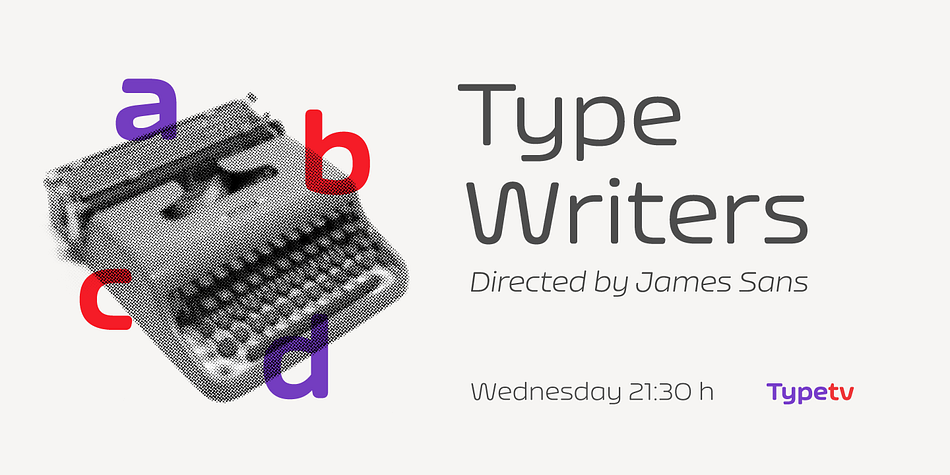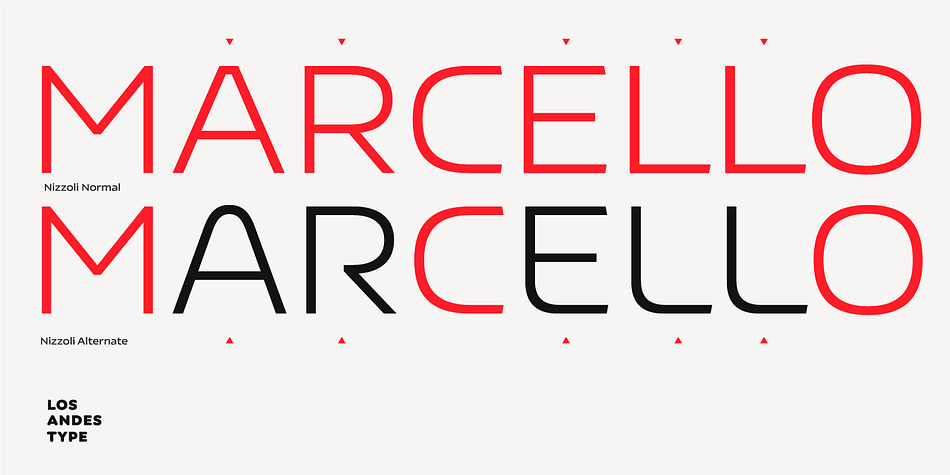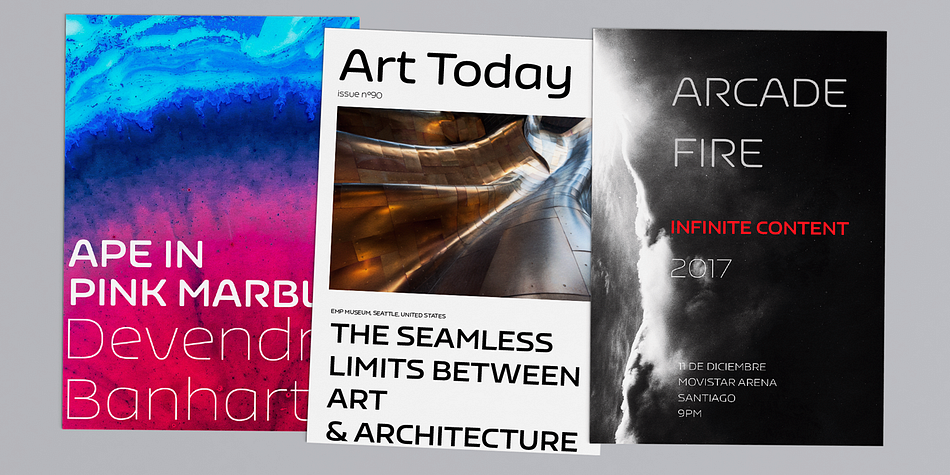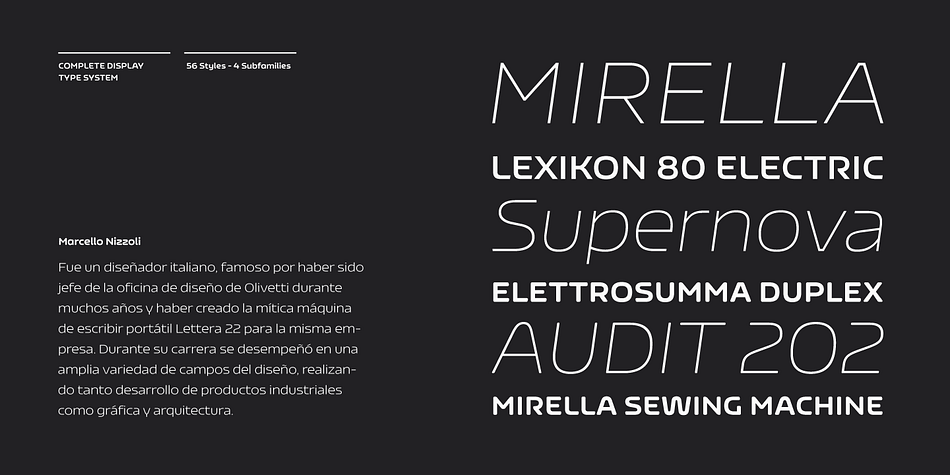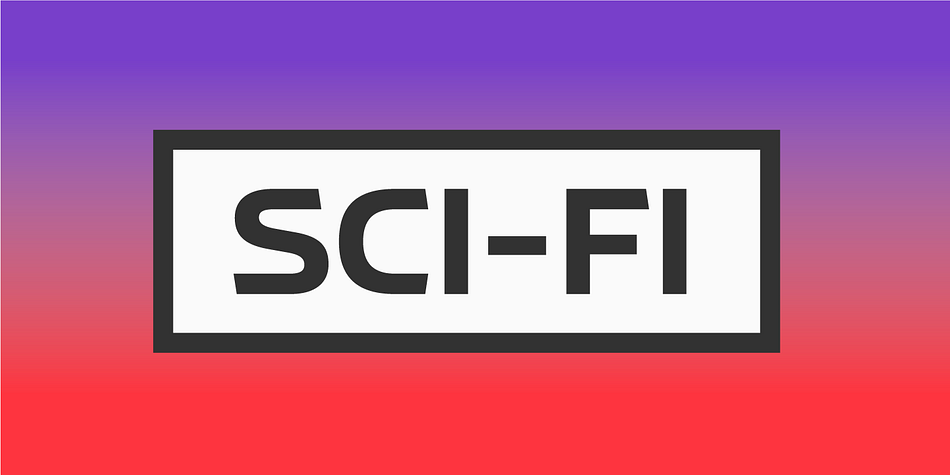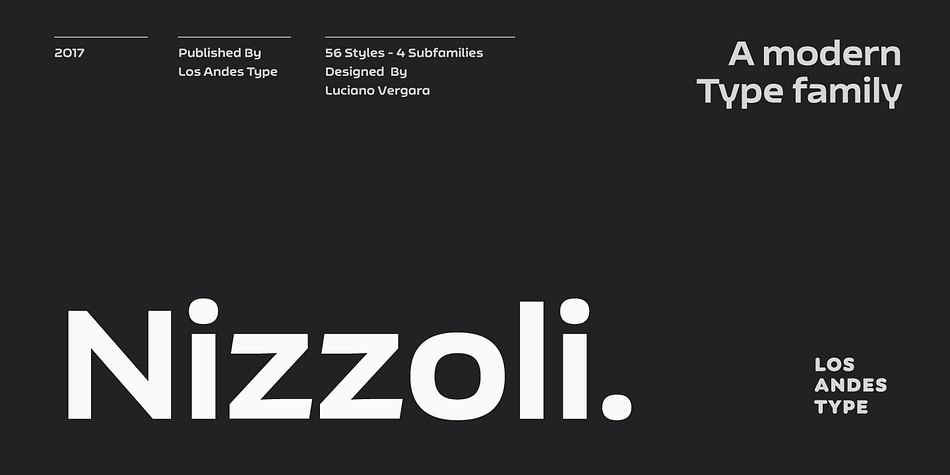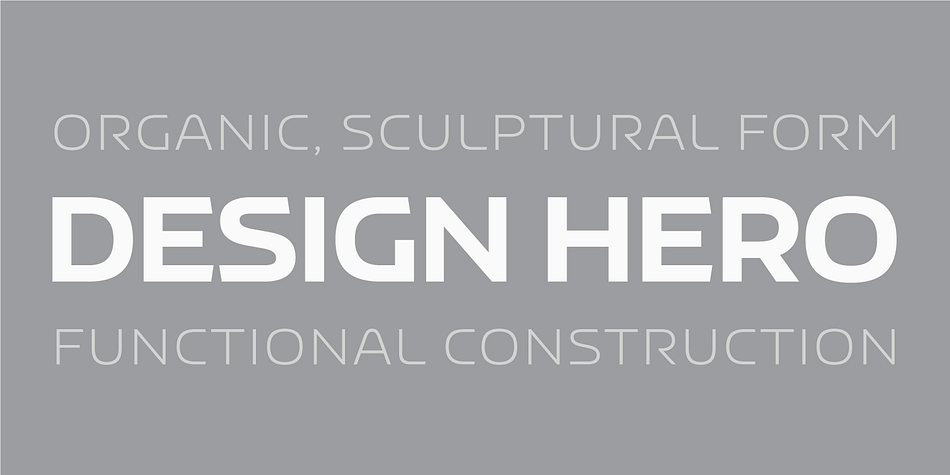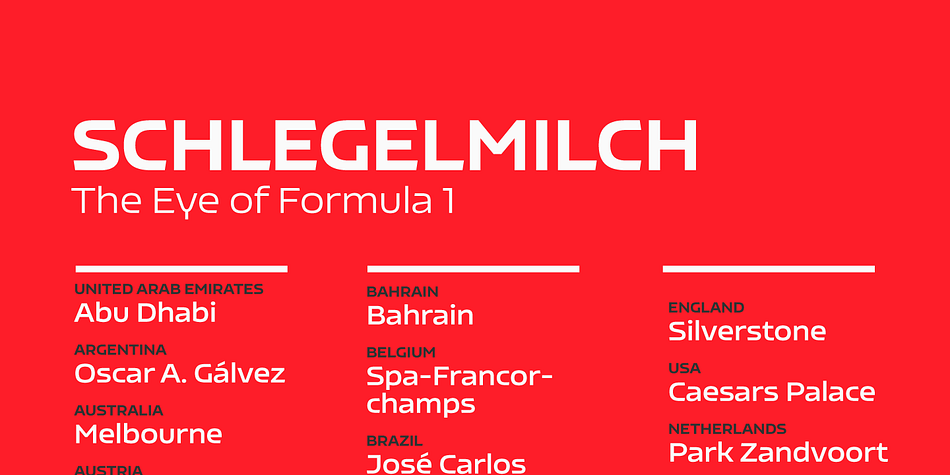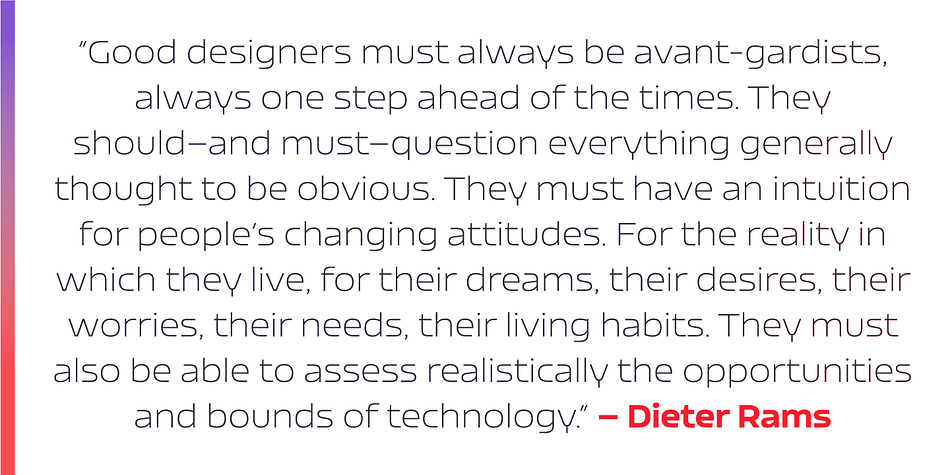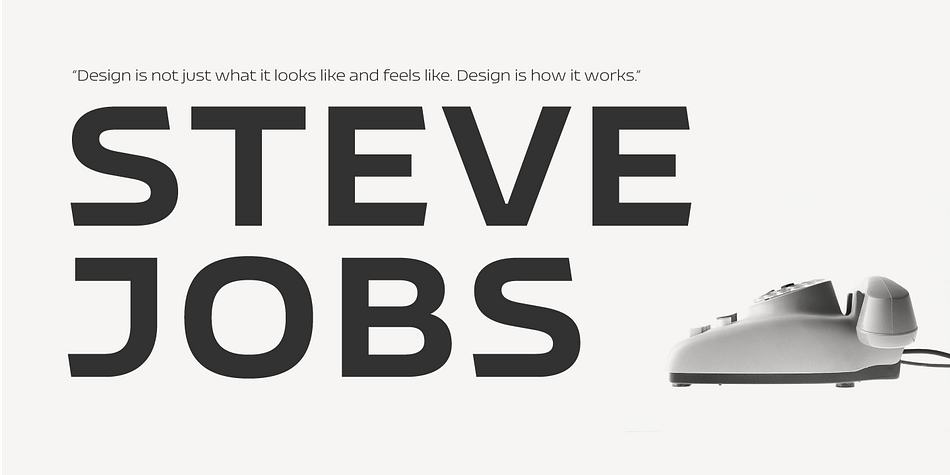
Nizzoli is a sans serif font family. This typeface has fifty-six styles and was published by Los Andes Type.
This typeface is a tribute to well-known Italian designer Marcello Nizzoli.
Nizzoli is a modern sans serif font that offers a wide range of alternatives—a workhorse type well suited for headlines, posters, corporate identity and advertising campaigns. This modular design is based on geometric shapes and combines straight lines with rounded corners.
The whole family is composed of four 7-weight subfamilies: one normal and one alternative plus rounded versions. Each subfamily includes matching italics.
This typeface is my own interpretation of those curves and shapes found in Marcello Nizzoli’s designs.